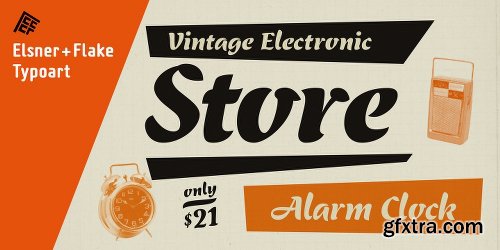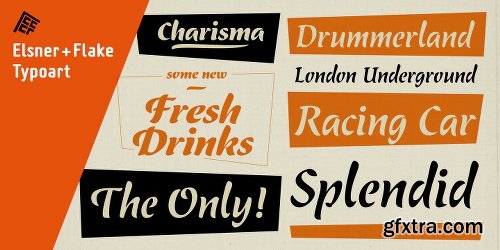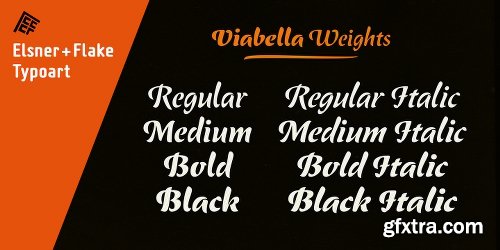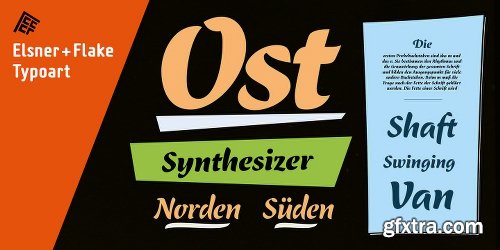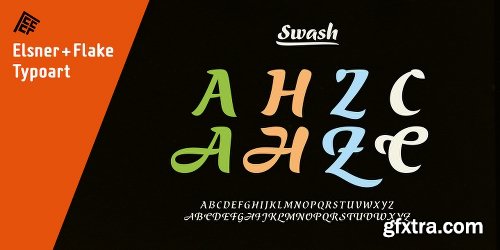
The script version of the typeface Viabella introduces us to the calligraphic side of the Berlin type designer and typographer Karl-Heinz Lange. The sketches for this script typeface, which resulted from the close cooperation with Veronika Elsner and Günther Flake, found their roots in sketch drawings which Karl-Heinz Lange had already drawn in the 1980’s.
For the Viabella design, Karl-Heinz Lange drew the basic letterforms of the Black and Regular cuts with a brush. He then re-worked the drawings and transferred them on to tracing paper. The design studio Elsner+Flake in Hamburg cut these typeface extensions and later digitized them manually with the help of the IKARUS Sustem. With the Regular cut as a basis, Elsner+Flake extended the family with the Light version and interpolated and re-worked the Medium weight. The completion of the family was taken over by the type designer Björn Gogalla who had done the same kind of work on Rotola, a design which Karl-Heinz Lange had also created for Elsner+Flake.
While Viabella was originally conceived as a headline typeface, its lighter weights can certainly be used for shorter text applications. The Black version creates powerful headlines with highly effective accents. With the help of swashes, which are available for all weights, the user can lighten up longer texts and add special character to titles.
In contrast to pure headline fonts, Viabella has been enriched by an extensive complement of special characters. In addition to the Europa-Plus character set which allows setting type in over 70 latin-based languages, the user will find multiple versions of numerals as well as oldstyle figures, tabular and proportional lining figures, diagonal fractions, and a complete set of superior and inferior figures and fractions (60%).
With such a rich character set, Viabella is not only ideal for many different uses in the areas of newspaper, magazine and advertising but it will surely be chosen for the design of greeting cards, invitations and other design projects within the privat sphere.